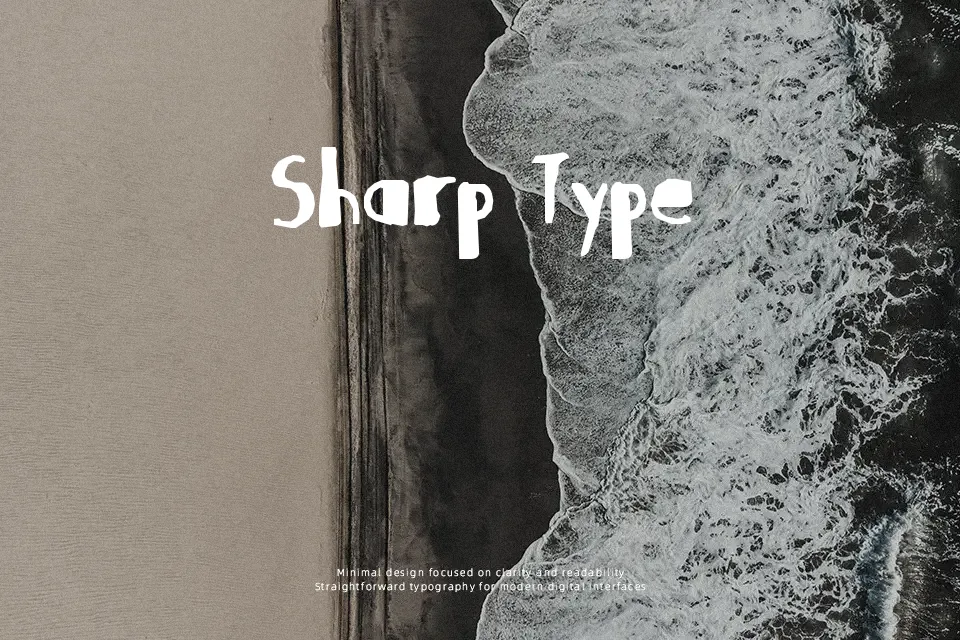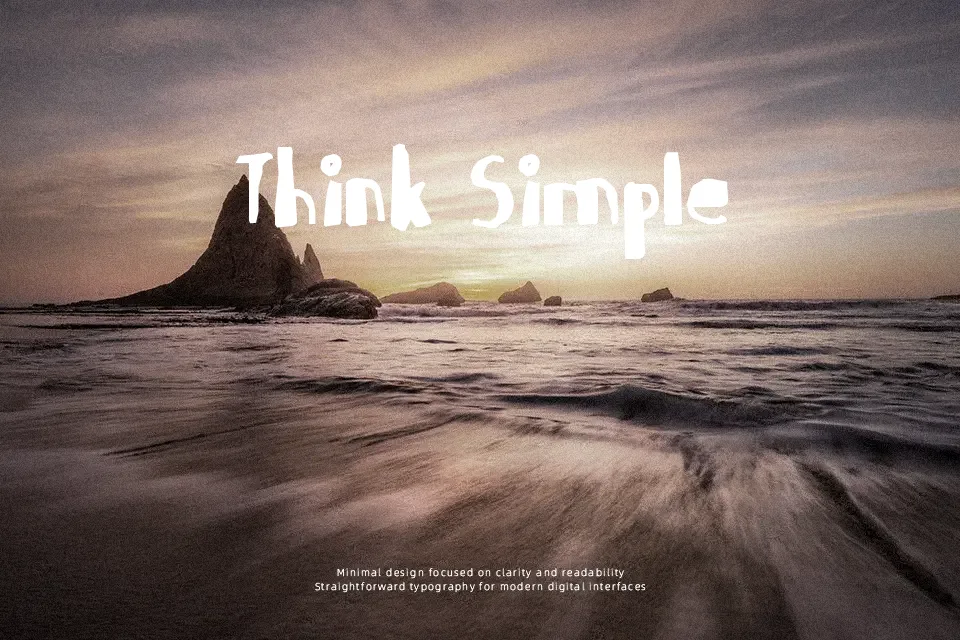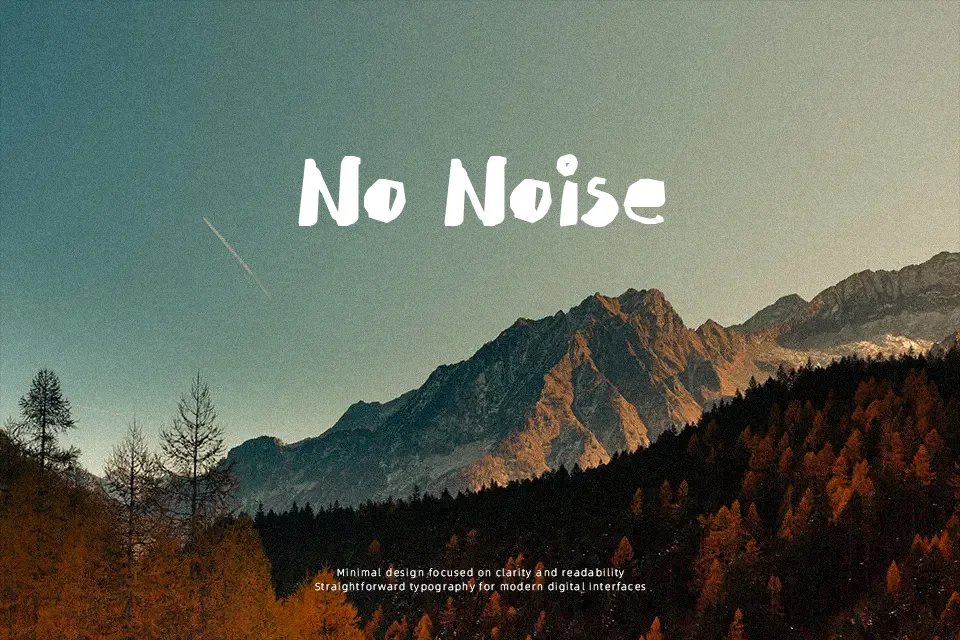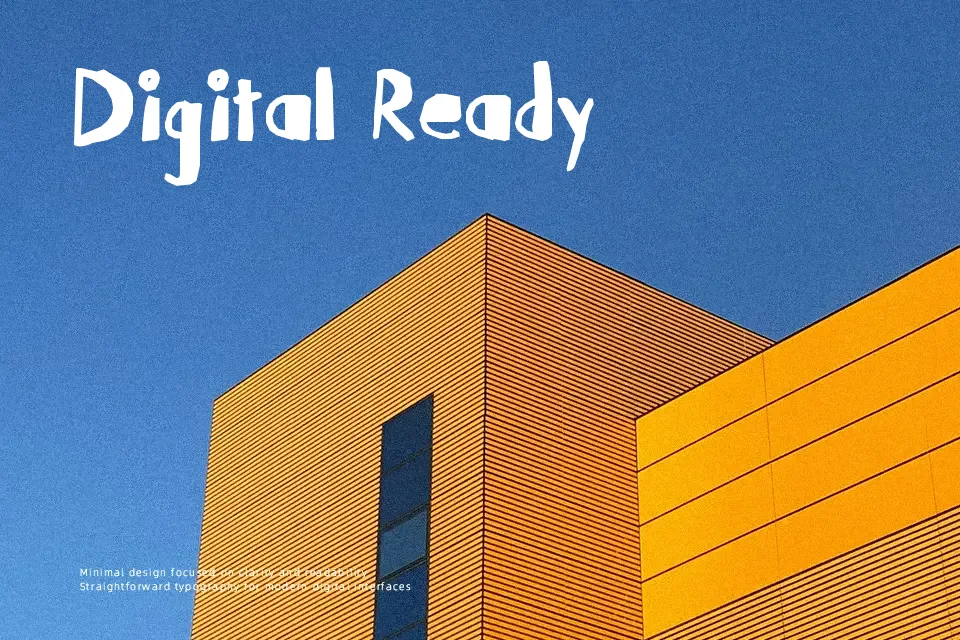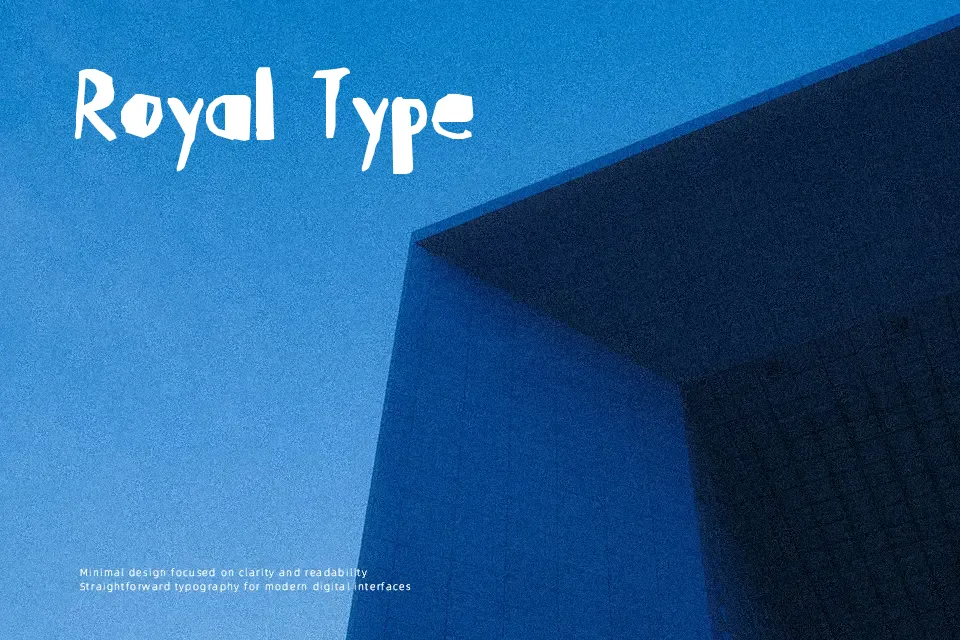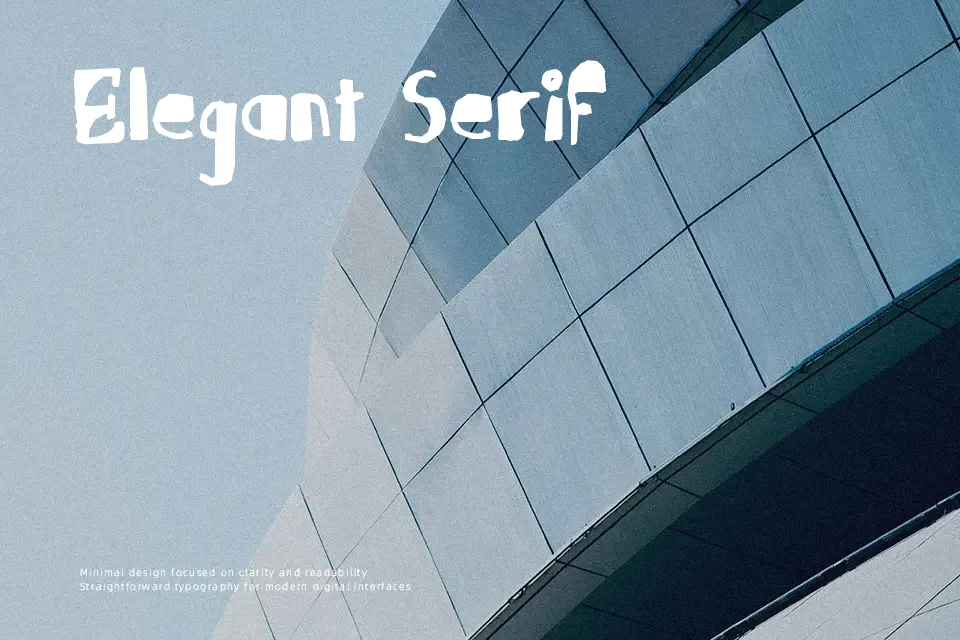
Abdomentality Font
Designed by Ekloff Design
Drawn from the designer’s own childhood handwriting, Abdomentality carries genuinely uneven, thick strokes with visible irregularities that read less as a stylistic choice and more as authentic imperfection. Letters sit heavy on the baseline with blunt terminals and a chunky weight that commands attention at display sizes. The eroded texture across glyphs gives headlines a worn, slightly grimy quality — suited for horror event flyers, underground music posters, or retro game title screens where polish would actually hurt the mood. That said, the irregular letterforms collapse quickly at small sizes and become unreadable in body text, which is a hard constraint. If your project calls for legibility in dense copy, this one won’t cooperate. Works best when given room to breathe at large scale.
Best For:- Horror or Halloween event poster headlines
– Underground music or punk zine title treatments
– Indie game or web comic title screens
– Retro-style sticker and merch graphics
Not Ideal For:- Body text or long-form reading
– Corporate branding or professional reports
– Small-scale print such as business cards or captions
– Multilingual layouts requiring extended character support
Perfect for gaming, halloween, and logo, with a bold and decorative style.